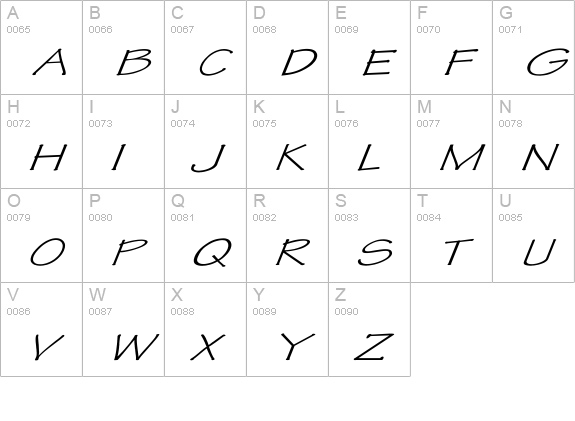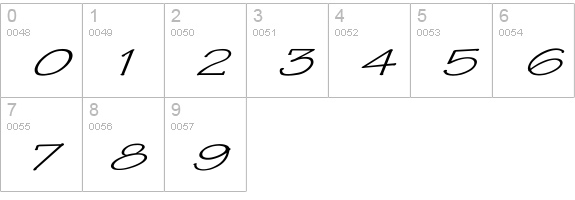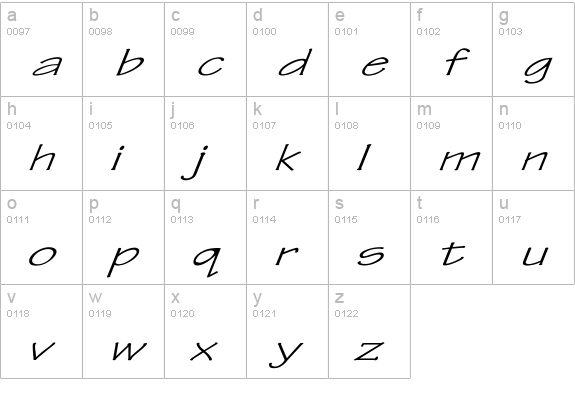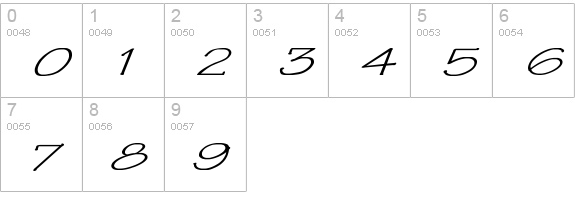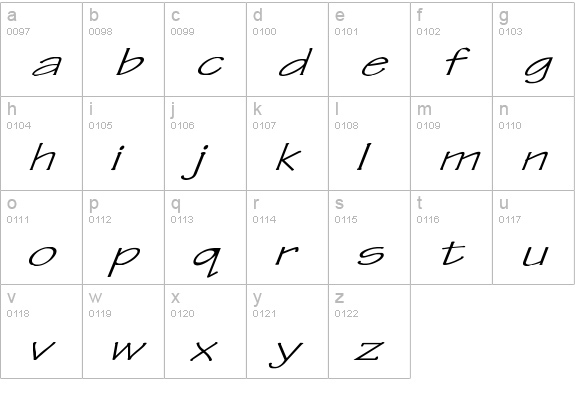
Tekton Ex Italic Font Details
Tekton Ex Italic is a distinctive, italic variant in the Tekton typeface family \xE2\x80\x94 well suited to design and typography projects.
Tekton Ex Italic is a stunning font that effortlessly combines elegance with a touch of boldness. Its sleek curves and subtle slant give it a unique personality, making it perfect for a wide range of design projects. The italicized version of the Tekton Ex font family, this typeface adds a sense of dynamism and sophistication to any text. Designed with meticulous attention to detail, Tekton Ex Italic is a true testament to the art of typography. Its letterforms are gracefully crafted, with smooth lines and a harmonious balance between thick and thin strokes. The result is a font that exudes both professionalism and creativity, making it suitable for everything from logos and branding to editorial layouts and advertising campaigns. One of the most remarkable aspects of Tekton Ex Italic is that it is available for free. That's right, you can download this extraordinary font without spending a penny. Whether you are a professional designer looking to enhance your portfolio or a hobbyist who wants to add a touch of flair to personal projects, you can access Tekton Ex Italic for free at FontsMarket.com. By offering this font for free, the creators of Tekton Ex Italic have made it accessible to a wide audience, ensuring that designers of all backgrounds can benefit from its exceptional qualities. This font is a true gem, and its availability as a free download is a testament to the generosity and dedication of its designers. So, if you're in search of a versatile and captivating font that will elevate your designs to new heights, look no further than Tekton Ex Italic. With its graceful curves, confident slant, and the added bonus of being freely available at FontsMarket.com, this font is sure to become a valuable asset in your design toolkit.